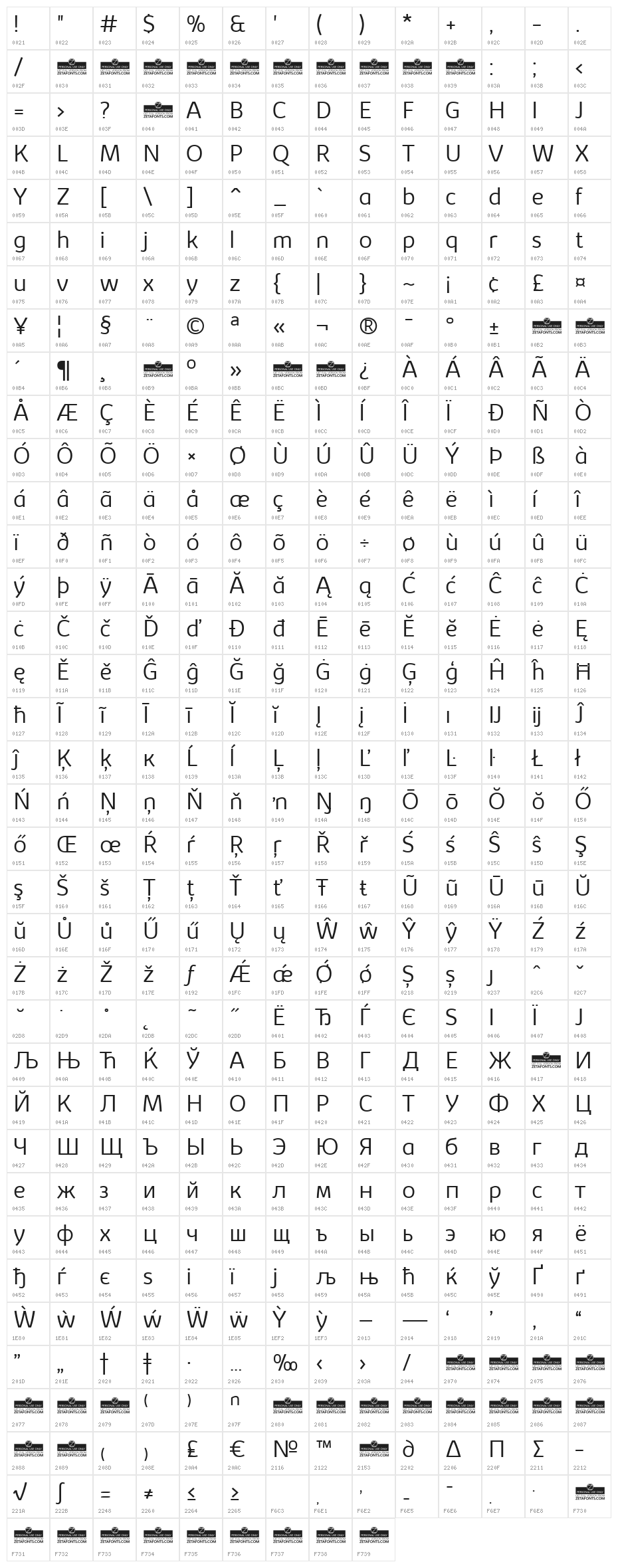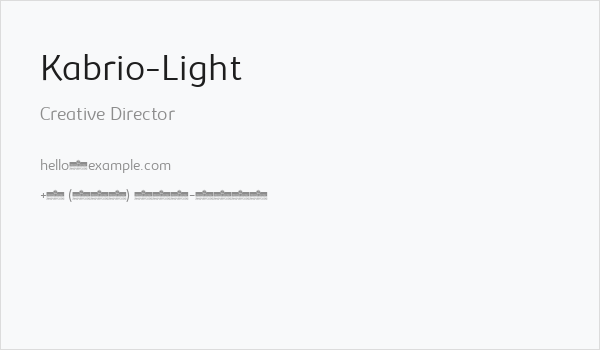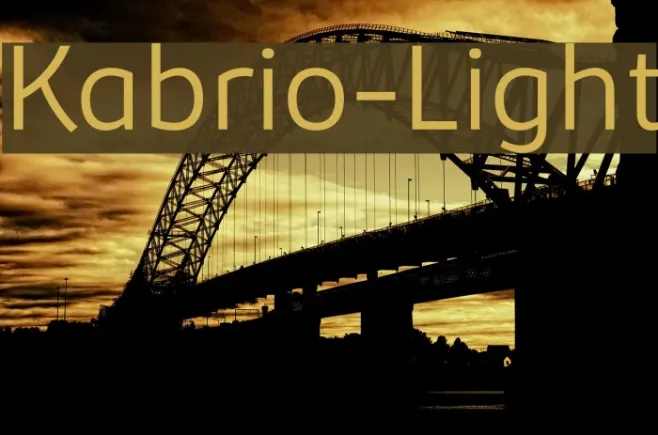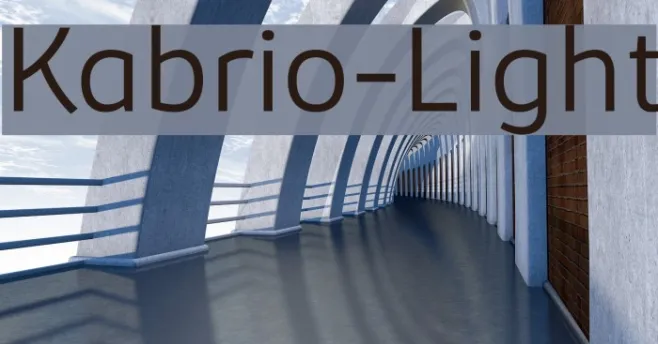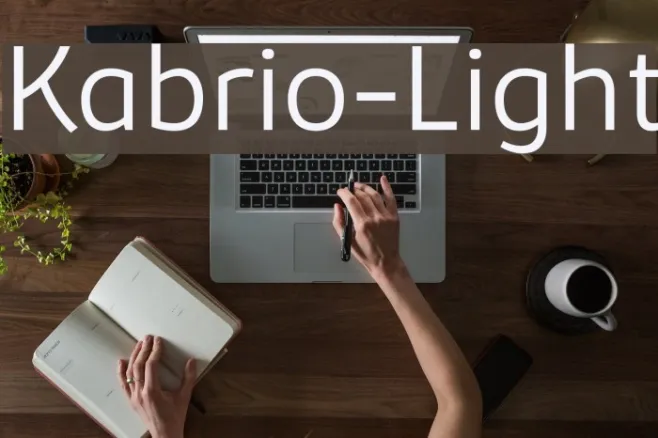
Kabrio-Light Font
Kabrio-Light Description
This font features a clean and modern sans-serif design, characterized by its simplicity and readability. The letterforms are well-proportioned, with a consistent stroke width that gives it a uniform appearance. The uppercase and lowercase letters are distinct, with a slight geometric influence that adds a contemporary touch. The numerals and special characters maintain the same clean aesthetic, ensuring versatility across various applications. Overall, the font exudes a sense of clarity and professionalism, making it suitable for both digital and print media.
| Proposed Projects | Ideal for corporate branding, website design, user interfaces, and editorial layouts. |